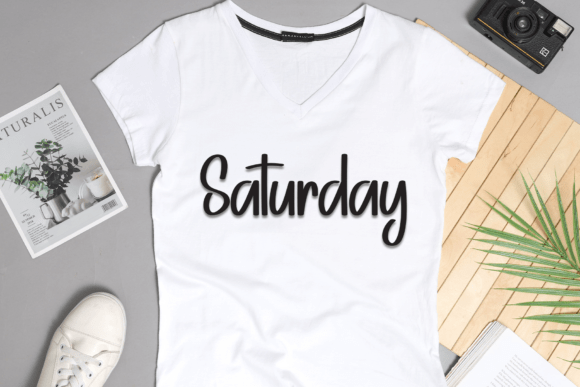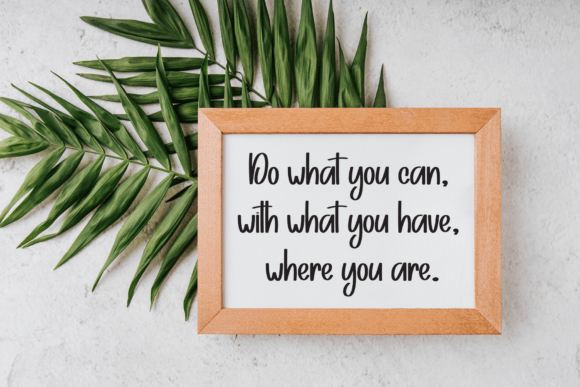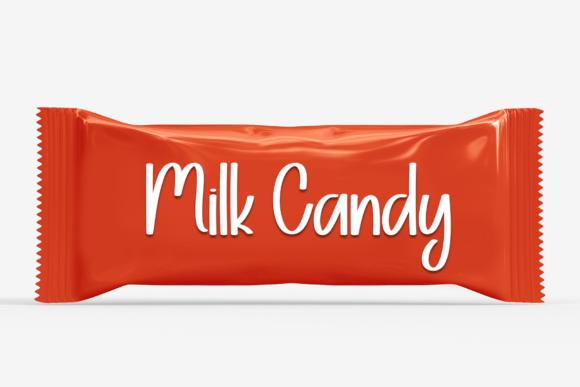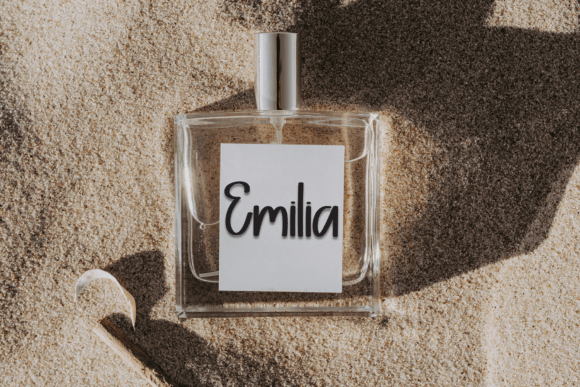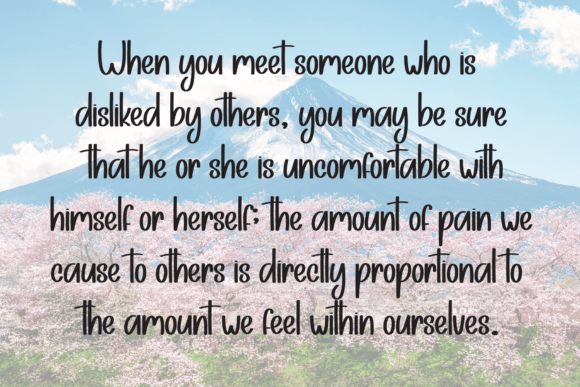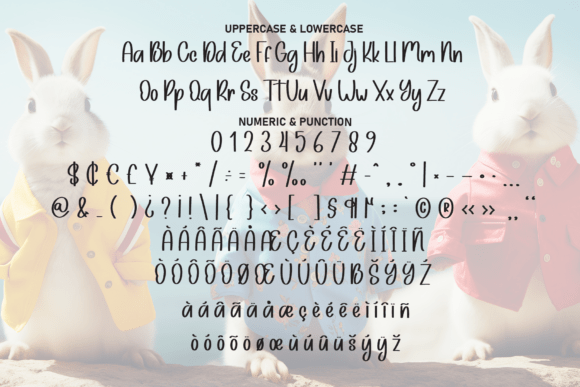
Bunnythick Font: Adding a Playful Touch to Your Designs
Are you looking for a font that can bring a dash of personality and charm to your designs? Look no further than the Bunnythick Font! This handwritten playful display font is perfect for designers and crafters who want to add a touch of whimsy and fun to their projects. With its quirky strokes and carefree letterforms, Bunnythick Font brings a delightful handmade feel that’s sure to capture the attention of your audience.
The Perfect Font for Creative Projects
Bunnythick Font is ideal for a variety of creative projects, including children’s books, greeting cards, posters, and branding. Its playful and energetic vibe makes it perfect for designs that need to appeal to a younger audience or convey a sense of friendliness and approachability. Whether you’re designing a logo, creating a social media graphic, or crafting a handmade card, Bunnythick Font is sure to add a touch of personality and charm to your work.
What Makes Bunnythick Font So Special?
So, what sets Bunnythick Font apart from other fonts? Here are just a few features that make it so special:
• Handwritten feel: Bunnythick Font has a delightful handmade feel that’s perfect for designs that need to feel personal and approachable.
• Quirky strokes: The font’s quirky strokes and carefree letterforms give it a playful and energetic vibe that’s sure to capture the attention of your audience.
• Fun energy: Each character in the font dances with fun energy, making your designs feel friendly, approachable, and full of joy.
Using Bunnythick Font in Your Designs
Using Bunnythick Font in your designs is easy! Here are a few tips to get you started:
• Pair it with other fonts: Bunnythick Font pairs perfectly with other fonts to create a unique and visually appealing design. Try pairing it with a clean sans-serif font for a bold and playful look.
• Experiment with colors: The font’s playful vibe makes it perfect for bright and bold colors. Try using it with a pastel color palette for a soft and whimsical look.
• Use it for headings: Bunnythick Font is perfect for headings and titles. Use it to add a touch of personality and charm to your designs.
Bunnythick Font offers a range of benefits for designers and crafters, including:
• Increased creativity: The font’s playful and energetic vibe can help inspire creativity and bring new ideas to your designs.
• Time-saving: With Bunnythick Font, you can create professional-looking designs in no time. Its unique and playful style eliminates the need for extensive design work.
• Versatility: The font’s versatility makes it perfect for a range of projects, from children’s books to branding and advertising.
In conclusion, Bunnythick Font is a playful and charming font that’s perfect for designers and crafters who want to add a touch of personality and charm to their designs. With its quirky strokes, carefree letterforms, and fun energy, it’s sure to capture the attention of your audience and bring a dash of whimsy to your projects. So why not give it a try and see the difference it can make in your designs?